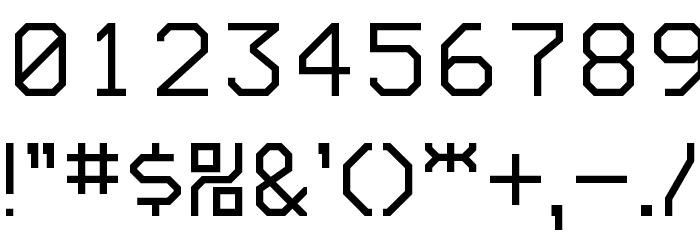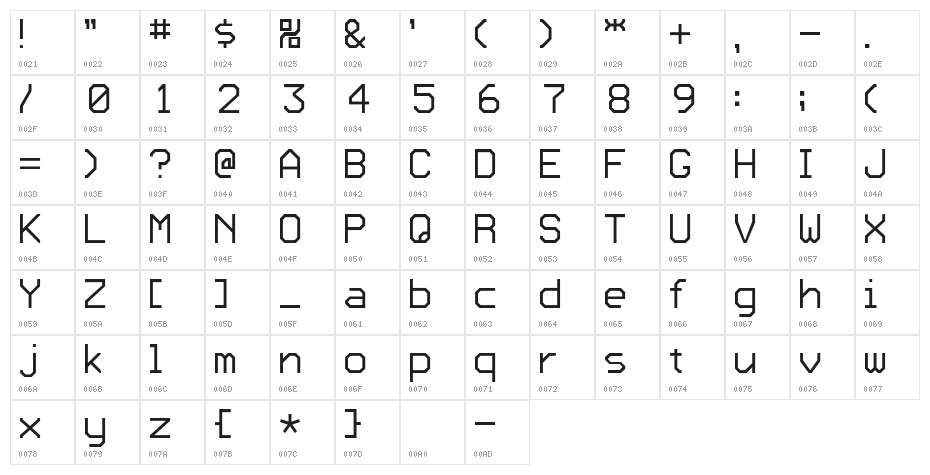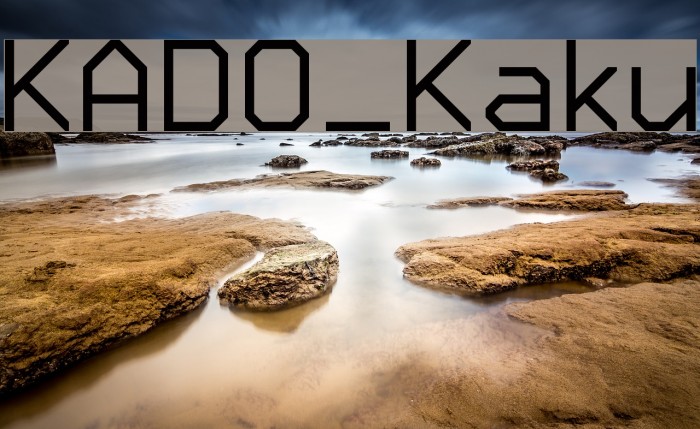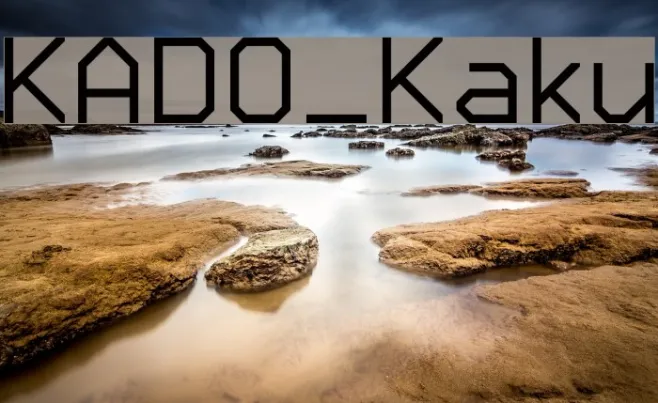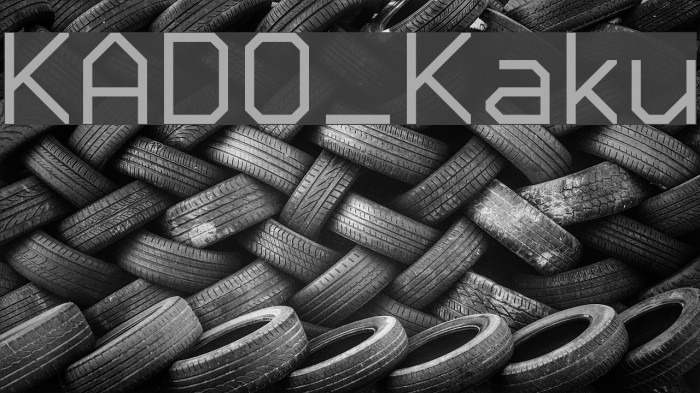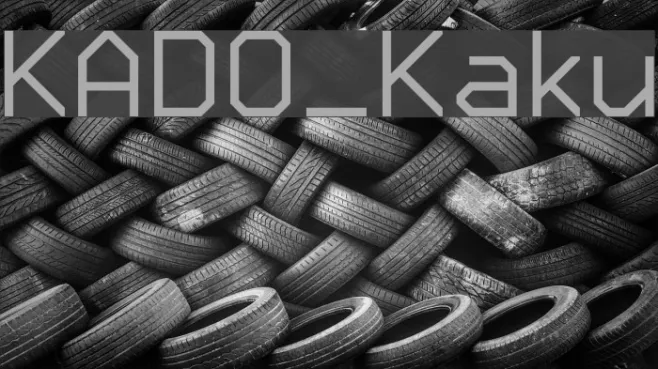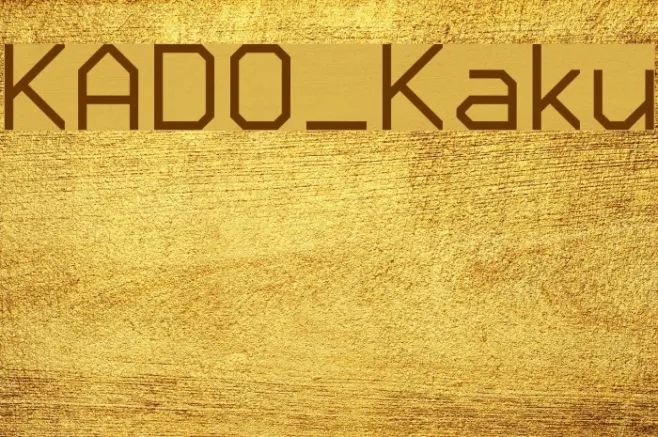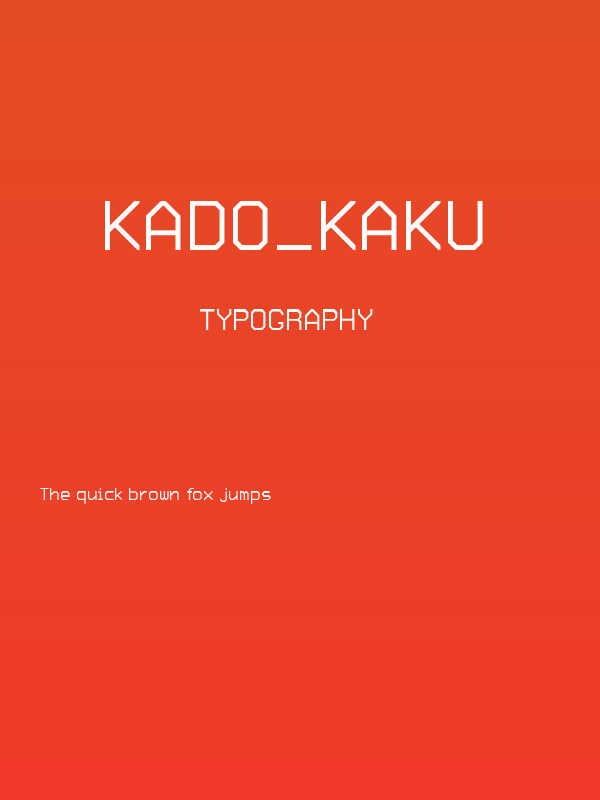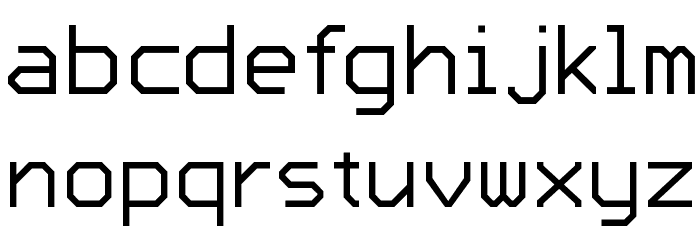
KADO_Kaku Font
KADO_Kaku Description
This font features a geometric and angular design, characterized by its sharp edges and clean lines. The uppercase and lowercase letters maintain a consistent height, creating a uniform appearance. The numerals and special characters follow the same angular style, enhancing the font's cohesive look. The overall design is reminiscent of digital or technical aesthetics, making it suitable for modern and futuristic themes. The characters are evenly spaced, providing a balanced and readable text flow. This font's unique style makes it stand out, while still maintaining legibility.
| Use Case | Logos, Headlines, Digital interfaces |
| Proposed Projects | Ideal for tech-related branding, digital interfaces, video game design, and futuristic posters. |